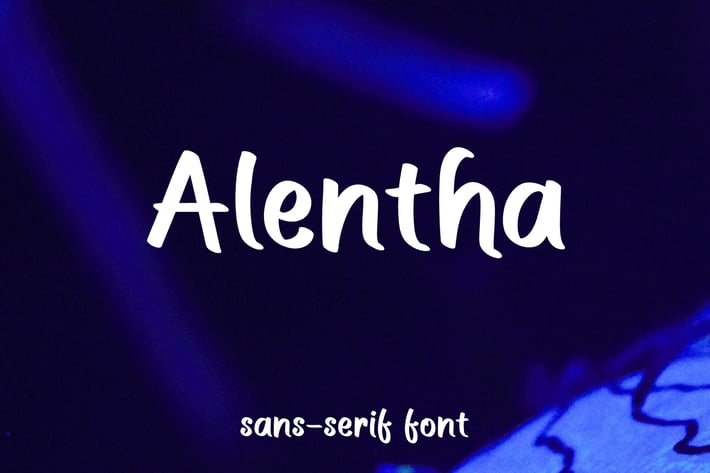
Alentha - Display Sans Serif Font
ALENTHA is a modern sans serif font. The look of the font is small, elegant, and modern.
Alentha can be used in any works such as book title, poster, advertisement, social media content, logo and many more.